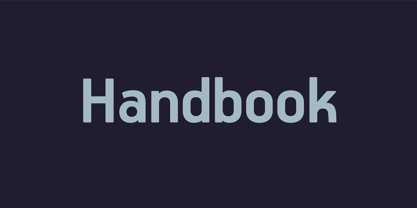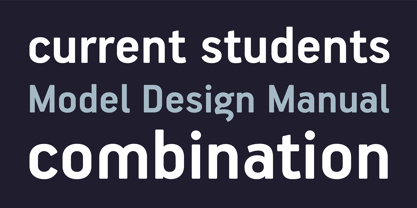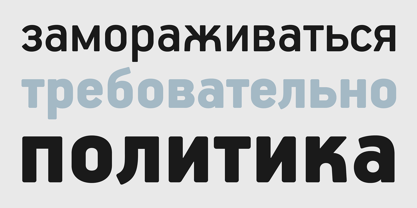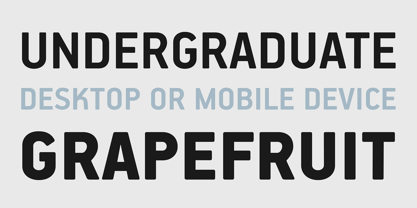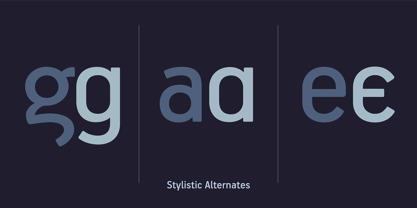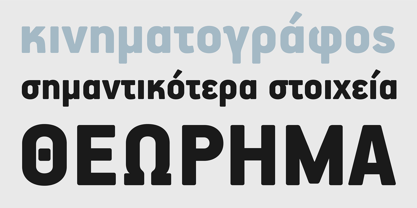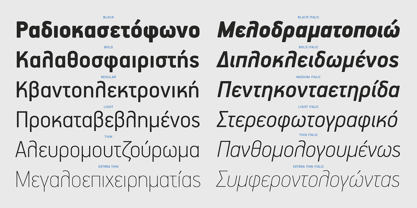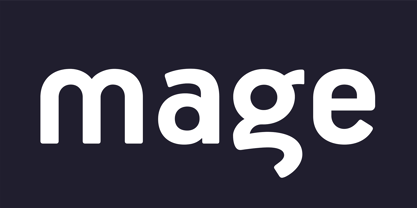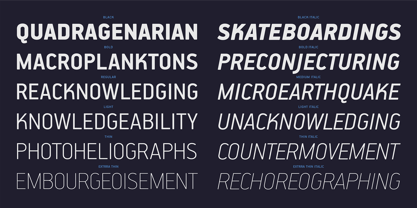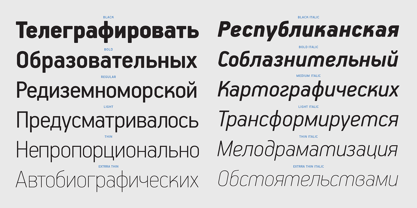
PF Handbook™ Pro
by Parachute
The PF Handbook Pro Font Family was designed by Panos Vassiliou and published by Parachute. PF Handbook Pro contains 14 styles and family package options. More about this family
This typeface incorporates round smooth corners and distinct design elements in several characters like 'a, g, k, m', without compromising legibility. In order to retain its sharpness, inner corners as well as junction points were left steep. This is a balanced typeface which works very well in long texts at small point sizes. Since its first release it has been used in numerous magazines, advertising campaigns and corporate applications. Handbook Pro comes loaded with a number of special features. The family consists of 14 fonts -from black to extra thin- including true italics. It supports 21 special OpenType features like small caps, fractions, ordinals, etc. and offers multilingual support for all European languages including Greek and Cyrillic. There is also a set of very interesting stylistic alternates which can be used to add a refreshing flair to your designs. Finally, every font in this family has been completed with 270 copyright-free symbols, some of which have been proposed by several international organizations for packaging, public areas, environment, transportation, computers, fabric care and urban life.